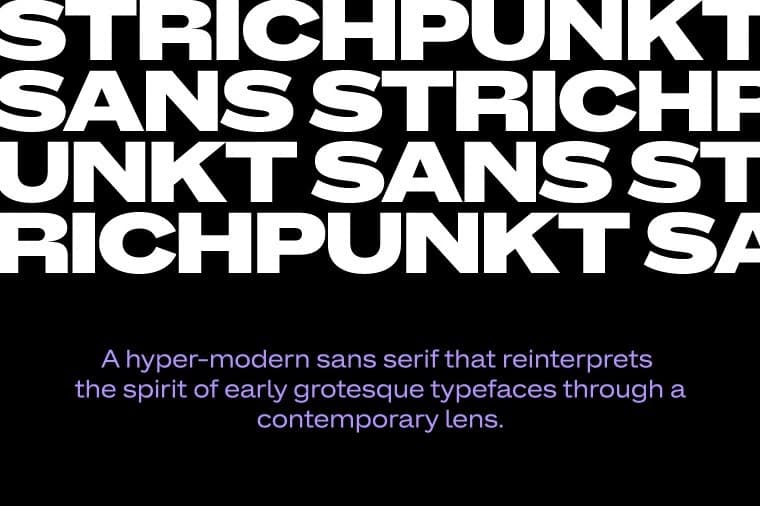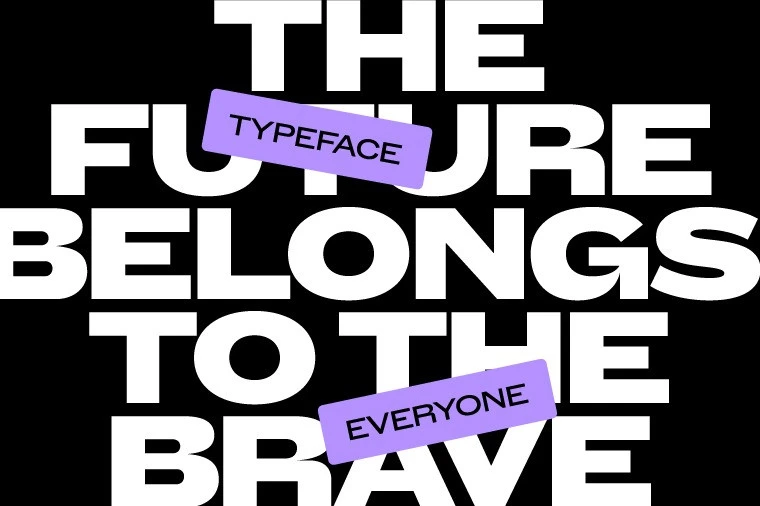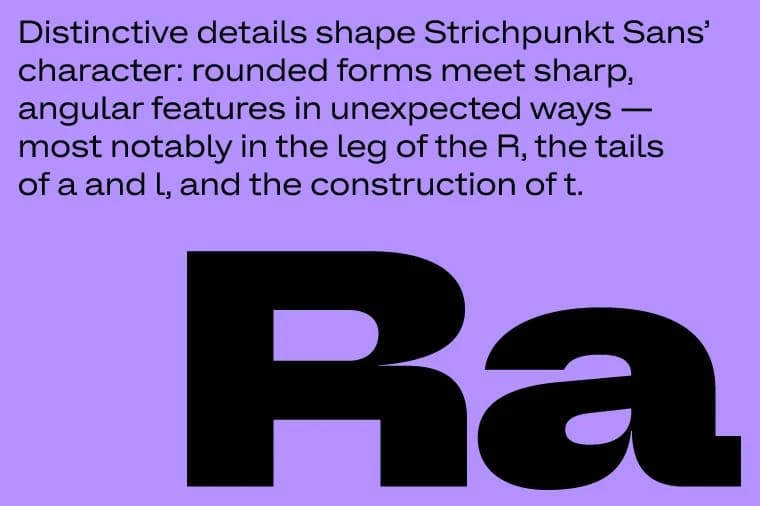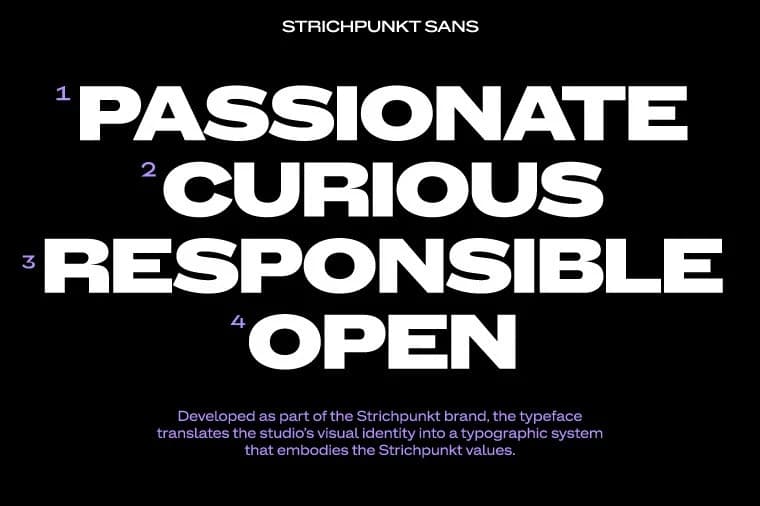
Strichpunkt Sans Font
Strichpunkt Sans Font is a hyper-modern sans serif that reinterprets the spirit of early grotesque typefaces through a contemporary lens. The family comprises eighteen styles across three widths (Normal, Wide, and Expanded) ranging from Regular to Black.